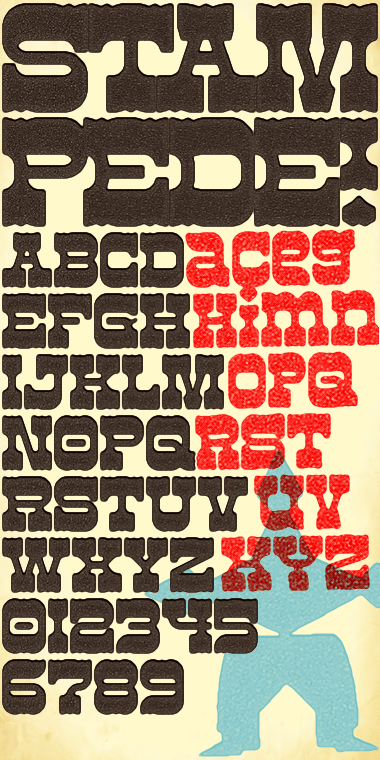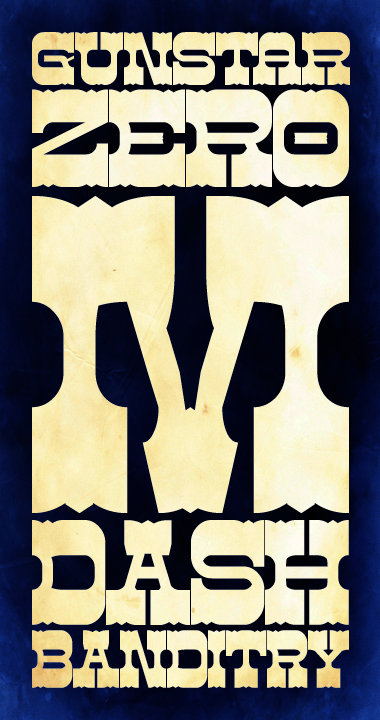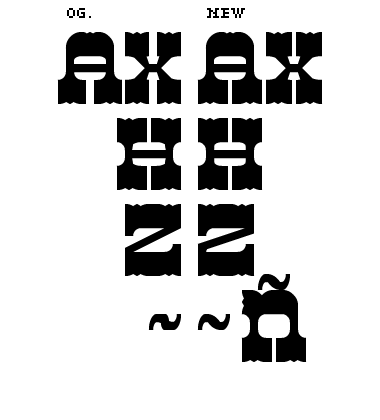
WOW!!! Lovely small indents and stuff. This is wonderful!!
Love the unsettling asterisk!
Bravo! I'm a big fan of western font, and this one is realy great.
The Hamilton Wood Type Museum and Rob Roy Kelly American Wood Type Collection deserve a couple nods each for offering reams of inspiration, historical background and reference material. Nick Sherman’s Intercut Wood Typeface Project schooled me and still breathes life into the dream that I might someday make Stampede! into functional wood type. Great reading, fontstructors; Nick even explores the modularity of wood type design.
In the interest of transparency, here is a complete list of changes I made. They’re minor, to be sure:
• fixed serif weight for fourth alternate A and X
• tweaked bracketing for H
• added alternate Z in lowercase
• modified tilde and added ñ
Also:
• alt A, H updated, and alt Z added to sample/s
However small the changes, I should have made them to a clone and waited patiently until after the judging/favoriting results are in. It doesn’t matter that I don’t think these tweaks will sway the competition result in my favor. I can’t even excuse myself as being bad at following rules, as there are none! Perfectionism be damned, sorry for the selfish decision.
this is a masterpiece. i'm a sucker for western fonts. this really takes advantage of all that FS offers in the hands of a resourceful and consummate designer. i will follow the links you provided as i'm always looking for new inspiration. western fonts really intrigue me. this is a treat beyond compare.
Maravillosa-Wonderful font! How full of detail and harmony, how subtle and loud at the same time, and the beautiful variations of the lower case... I take off my hat to you.
Thanks, guys! :) I have always been quite smitten with the curved bricks and the challenge of using them at maximum scale. When all the details finally come together, often after seemingly impassable heights, it is one of those “riding off into the sunset” moments.
I decided to go for it armed only with total confidence in creating that most important juncture of the letter ‘B’. My compadres in this effort are of course the new arcs and their composite brethren. The whole parade would fall flat on its face after quickly getting bucked from the bronco without their steadying hand.
@funk_king: I really hope you enjoy those links. Many of the type specimens will be familiar based on the range of digitizations and the many older classics that were cut as wood type. Still, I think it’s pretty damn cool to see them cataloged in all their analog glory. And highly educational. So many antique/antiquated details are simply lost in their modern incarnations, and the charming texture and imperfections of real wood type prints can only be simulated so well. Regarding letterpress – and this is across the typographic board – I am not alone in recognizing it’s a train the electronic revolution never caught.
My only disappointment here is that I could not find anything really compelling to see or share on how to operate a wood type-cutting pantograph. I intend to pick up the Typeface documentary to see more – or better yet, start saving up for that road trip to Wisconsin! :)